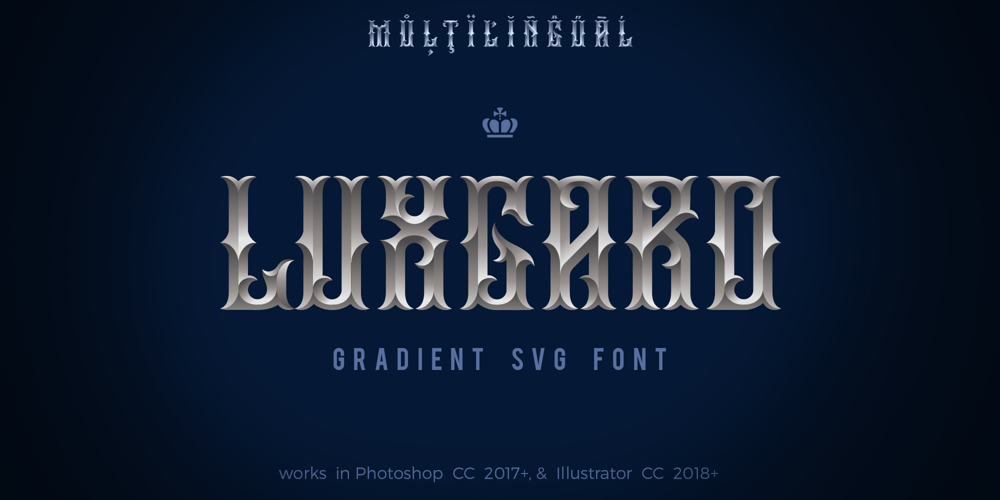
Luxgard Steel Font Family was designed by Dmytro Poliakh and published by Sentavio. Luxgard Steel contains 1 styles and family package options. Luxgard Steel is an unique vintage color gradient vector SVG font created for such areas as Media & Entertainment, Food & Drinks, Clothes, Music, Games & Applications, etc. with Multilingual support.Well use in vintage labels, headers & titles, Posters, Street Signs and other Outdoor, Package Design.Luxgard Steel is derivative from Luxgard Layered font (it is also cool and flexible):https://www.myfonts.com/collections/luxgard-font-tadiar